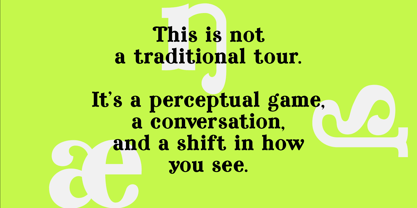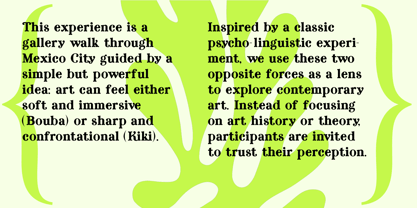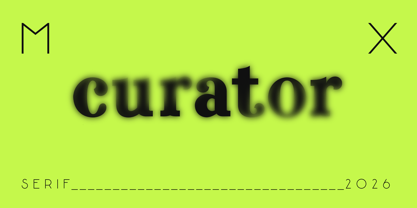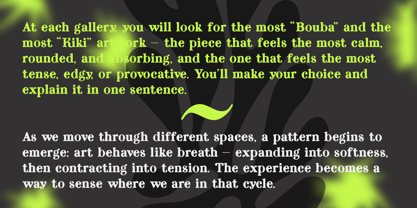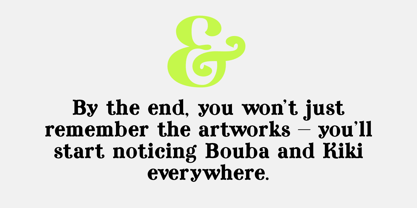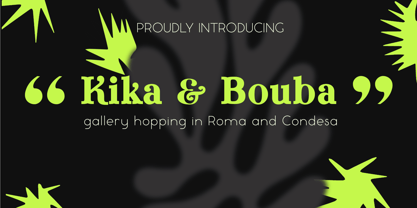
Curator MX
The Curator MX Font Family was designed by Alex Etewut and published by Etewut. Curator MX contains 1 styles. More about this family
Curator MX is a contemporary serif typeface that balances editorial elegance with experimental character. Rooted in the original Curator family, it extends the idea of a “museum serif” into a more expressive and flexible system, where each glyph feels intentionally composed rather than mechanically repeated. The font carries a refined contrast and sharp detailing, while preserving a calm, minimalist rhythm that makes it highly usable across both digital and print environments. Designed with multilingual support, including extended Latin, Curator MX adapts easily to international projects and cross-cultural visual systems. Its expanded set of alternates and ligatures allows designers to curate their own typographic voice, shifting between strict structure and subtle individuality. This makes it particularly effective for branding, editorial layouts, and conceptual design where nuance matters. Curator MX works as both a functional tool and a conceptual gesture. It reflects a design philosophy where typography becomes a space of perception — clean, controlled, yet open to variation. Whether used for identity, publications, or art-driven projects, the typeface offers a quiet sophistication with enough depth to stand out without shouting.
Etewut Foundry explores the intersection of consciousness, minimalism, and visual perception through type design. Rooted in Alexander Etewut’s artistic practice, it supports an ongoing personal design process, releasing typefaces developed along the way. Focused on lettering, typography, and font design, the foundry emphasizes attention to detail, refined forms, and visual clarity. Each typeface reflects a balance between structure, silence, and expression, offering tools for designers who seek both function and subtle conceptual depth, where meaning emerges through form.